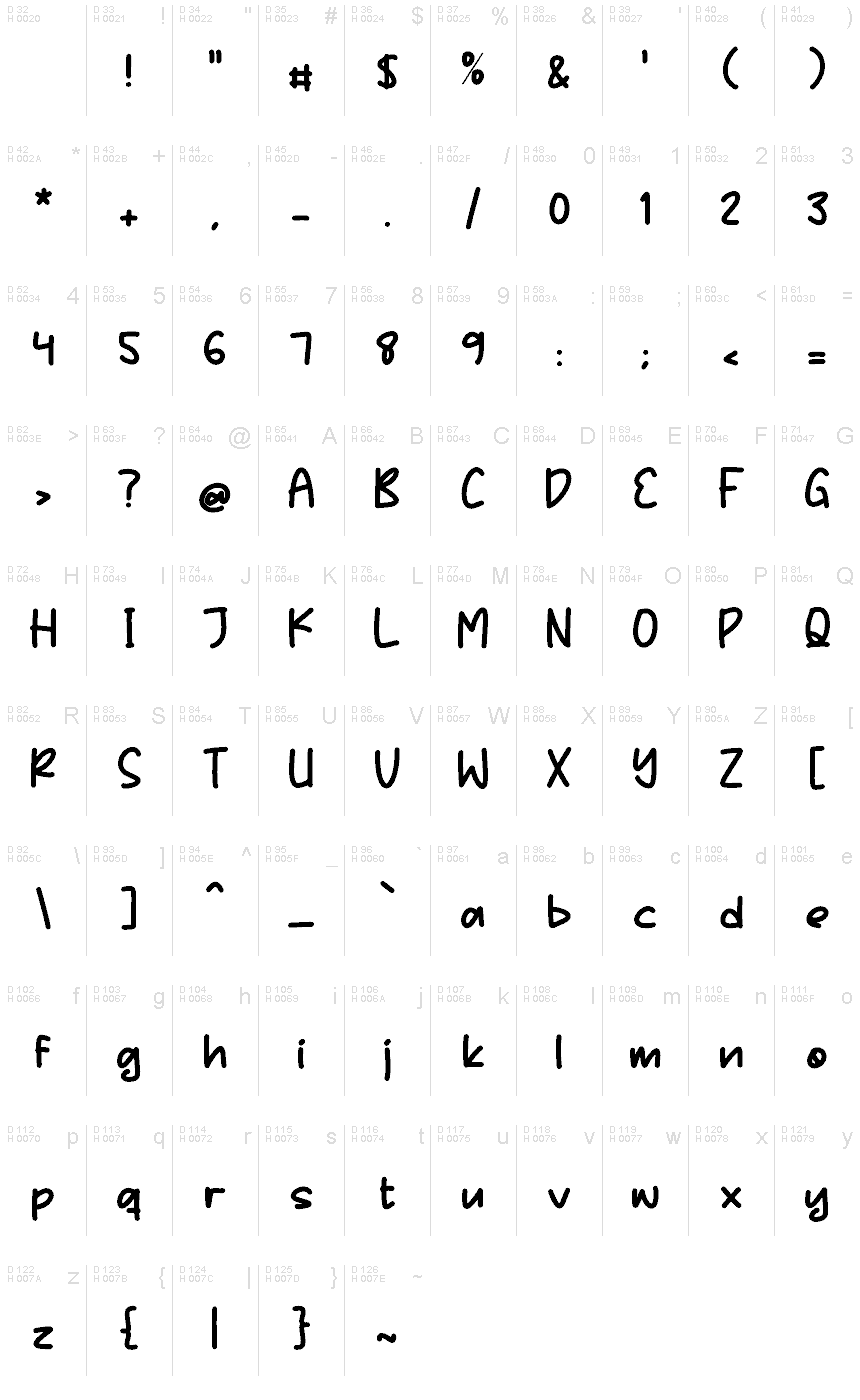
BOTANIC NATURE
Botanic Nature font by Perspectype Studio offers a casual and modern aesthetic with an organic feel. This free handwritten font exudes an approachable, informal charm suitable for various designs seeking a personal touch.